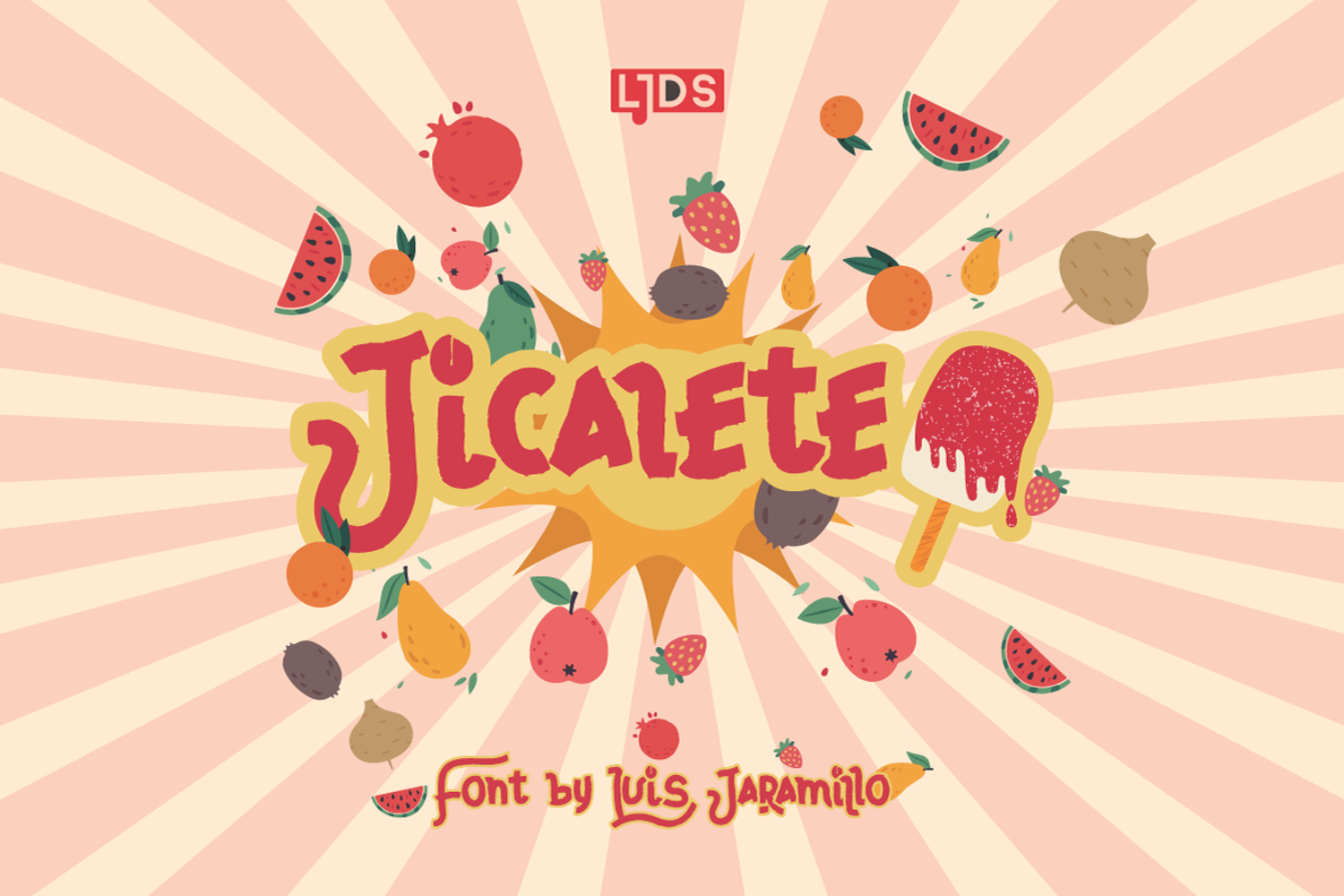
Jicalete font
Jicalete is a brush typeface inspired by a Mexican appetizer created from a legume or turnip, which is medicinal and at the same time with a good flavor that is seasoned with fruit juices.